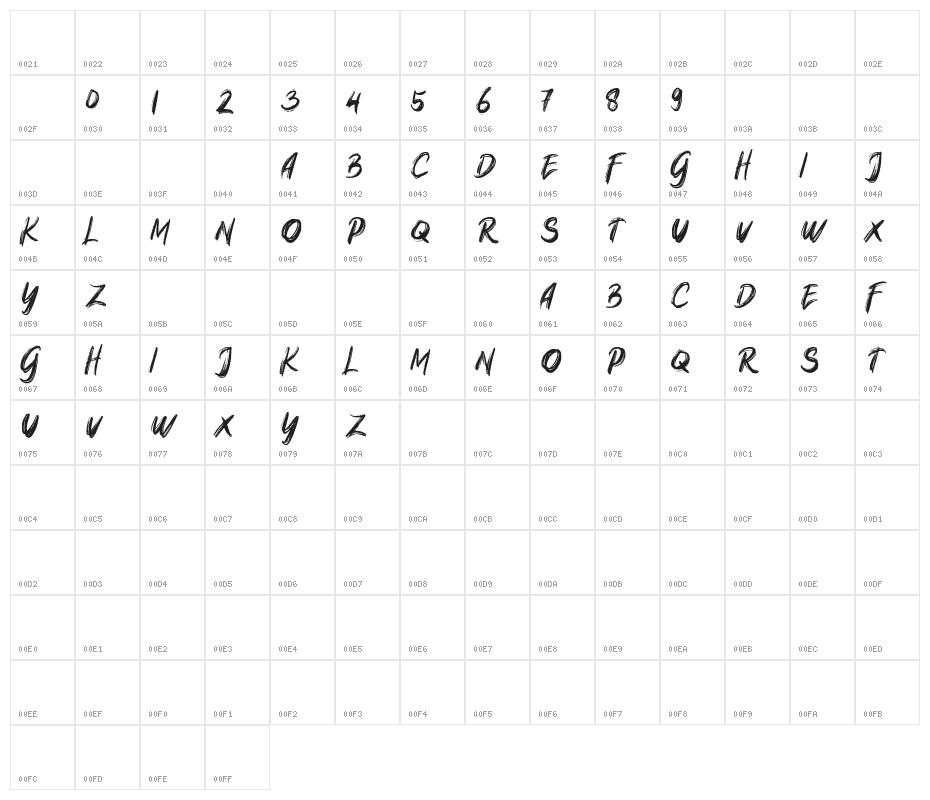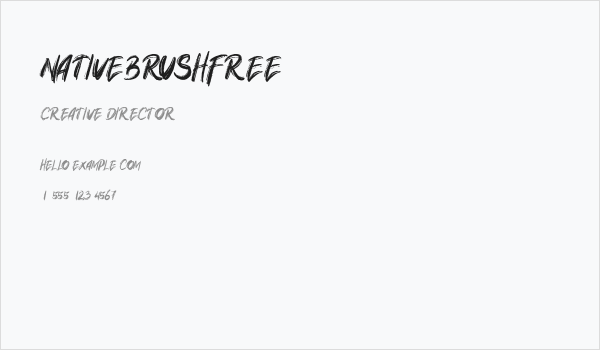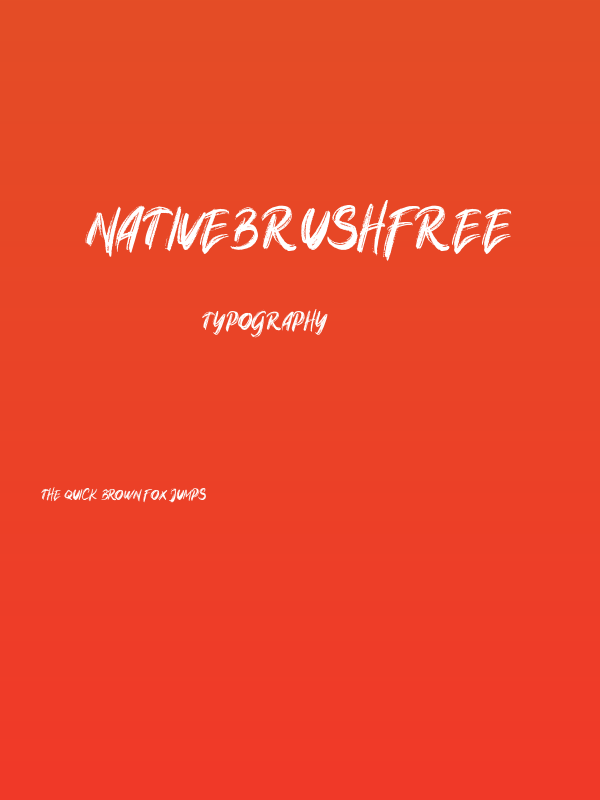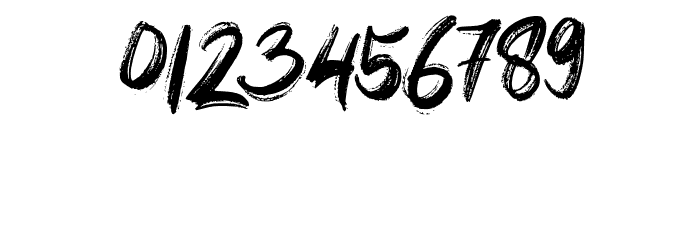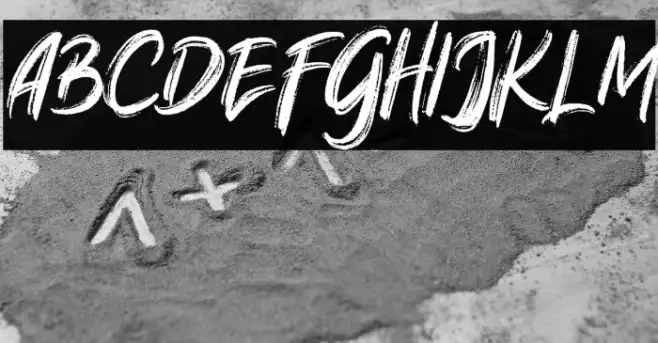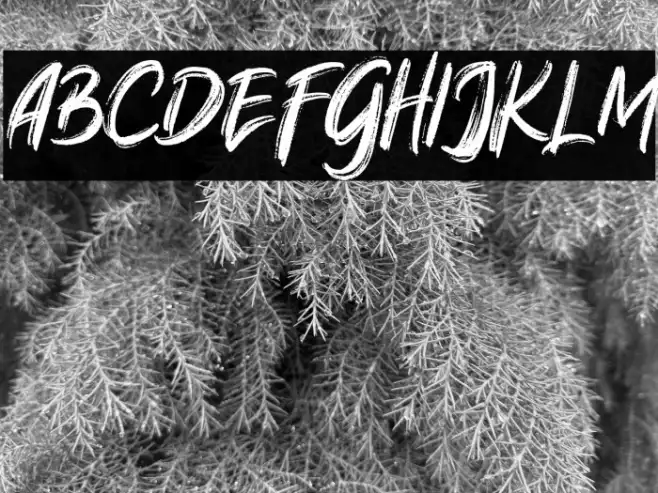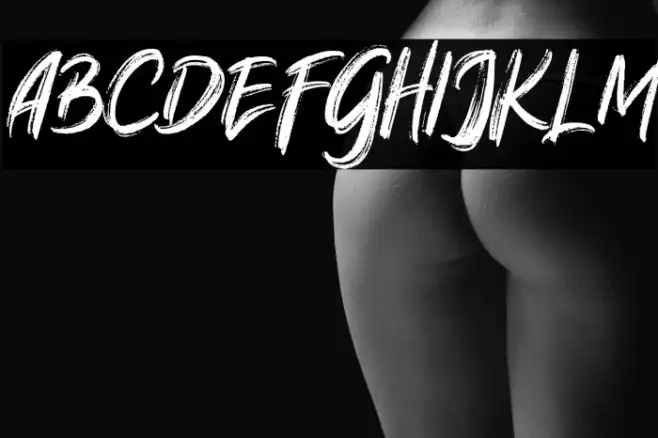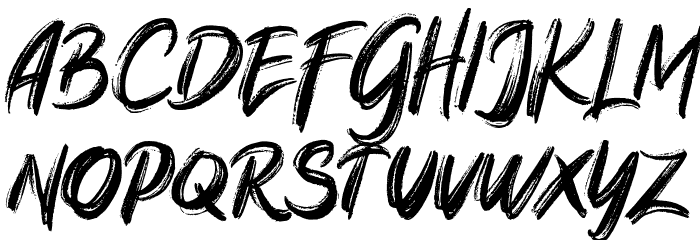
NativeBrushFREE Font
This font exudes a dynamic and energetic style, characterized by bold, sweeping brush strokes that give it a hand-painted appearance. The letters are crafted with a sense of movement and fluidity, making each character appear unique and full of personality. The uppercase and lowercase letters maintain a consistent style, with slightly exaggerated curves and angles that enhance the font's expressive nature. The numbers and special characters follow the same brush-like aesthetic, ensuring a cohesive look across all elements. This font is perfect for projects that require a touch of creativity and flair, such as artistic posters, branding for creative industries, or any design that aims to capture attention with its bold and lively appearance.